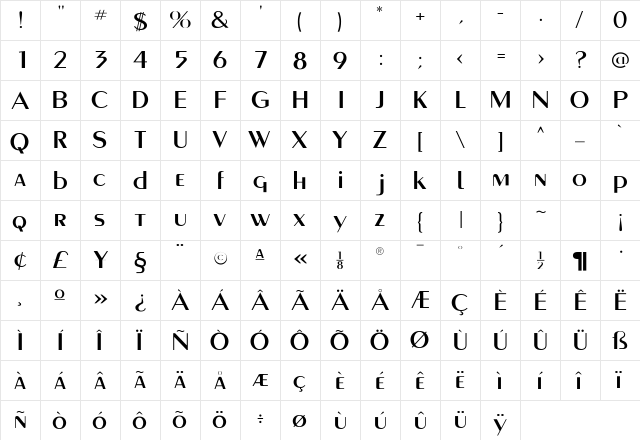
MontereyFLF-Medium Medium
Design Context for MontereyFLF-Medium Typeface
MontereyFLF-Medium is a composed and adaptable typeface that performs quietly and consistently across a wide range of design contexts.